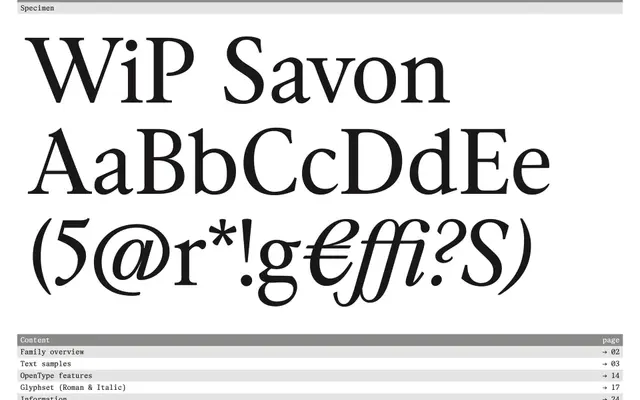
A two-style text serif from Proof of Words, offered in Regular and Italic for body copy and editorial use.
Savon comes in two styles: Regular and Italic, designed for sustained reading at text sizes. The sample text on the page is set at length in both cuts, suggesting the family is intended primarily for body copy rather than display work. Limited weight range keeps it focused on a narrow but specific use case.
The page shows a text-weight serif with a companion italic, suggesting a traditional book or text serif design. The sample text usage and weight naming (Regular, Italic) point toward a transitional or humanist serif classification.